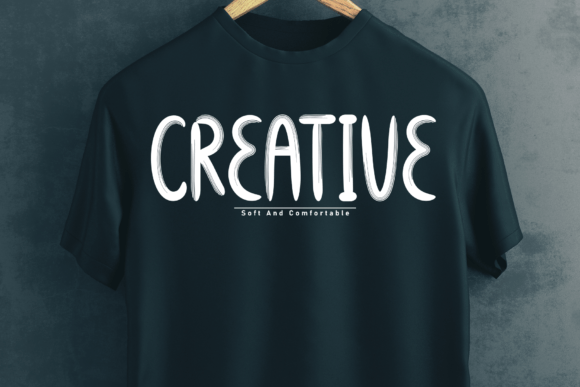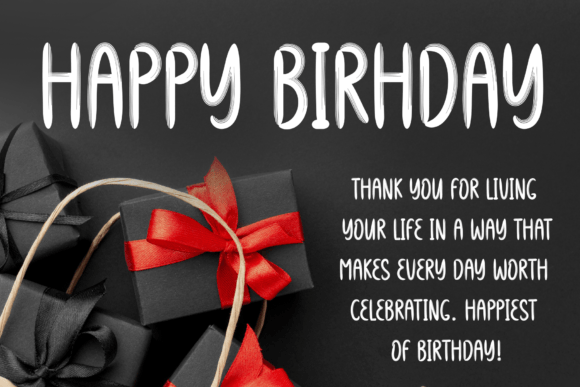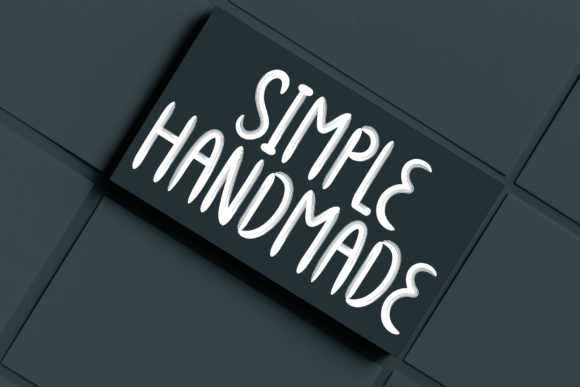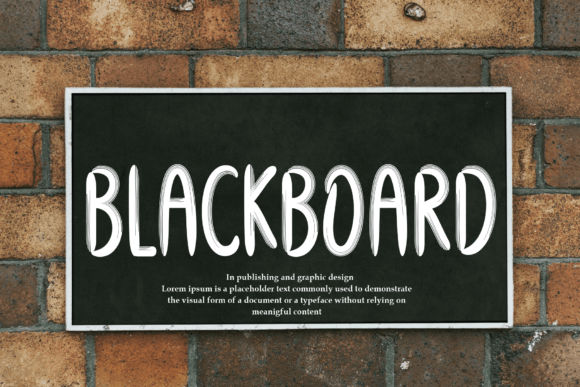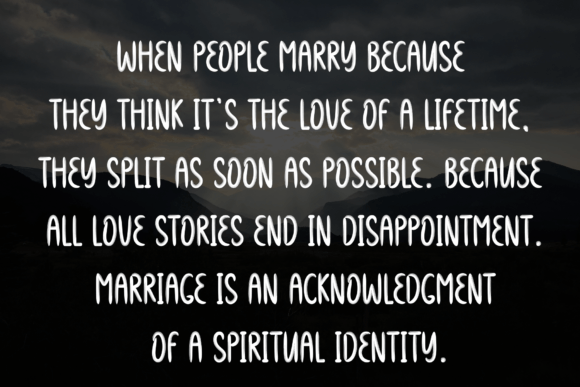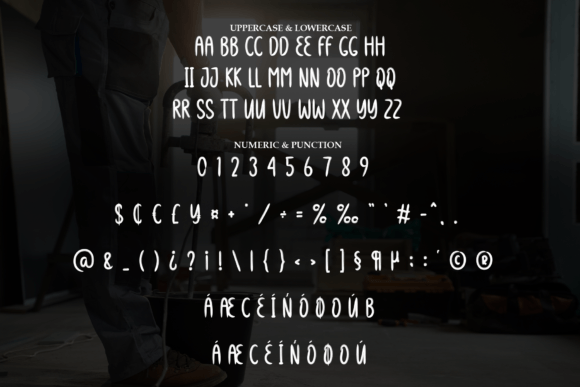
Introduction to Renovation Font
Remember the moment when you first conceptualized your dream project? Maybe it was a wedding invitation, a birthday card, or a social media campaign. Whatever it was, you knew exactly what you wanted – something unique, something that would capture the essence of the occasion. For designers like you, finding the perfect design resource can be a challenge, but what if I told you that I’ve stumbled upon a hidden gem that will make your creative project shine? Say hello to the Renovation Font, a sweet and friendly handwritten display font that’s about to become your new best friend!
This high-quality font is perfect for adding a fun touch to your designs, and the best part? It’s free to download! With its transparent background, you can easily layer it over any image or background, giving you complete creative control. Whether you’re a seasoned designer or just starting out, the Renovation Font is an invaluable addition to your design arsenal, and I’m excited to share it with you.
Key Features of Renovation Font
- High-quality design: Renovation Font is a premium font designed to meet the needs of creative projects, offering a unique and stylish look.
- Transparent background: This font features a transparent background, allowing for seamless integration into various design elements.
- Large character set: With over 1000 characters, including uppercase and lowercase letters, numbers, and symbols, this font is perfect for any creative project.
- High-resolution design: With a resolution of 300 DPI, this font is ideal for printing and digital use, ensuring crisp and clear text.
- Design resource: Renovation Font is a valuable addition to any designer’s toolkit, providing a unique and stylish look for any creative project.
Honest Review: Renovation Font
I recently had the chance to work with the Renovation Font, and I must say it’s been a game-changer for my creative project. The high-quality design is perfect for any project that requires a touch of elegance and sophistication. ✨
One of the things I love about this font is its versatility. It’s available for free download, which makes it a fantastic design resource for both personal and professional projects. The transparent background is also a huge plus, as it allows for seamless integration with any design element. ✨
The font comes in a variety of styles and weights, making it easy to find the perfect fit for your project. However, I did encounter some limitations when using the font in combination with certain design software. The font sometimes doesn’t render properly, which can be frustrating. ⚠️
Despite this minor issue, I’m overall really impressed with the Renovation Font. It’s a high-quality design resource that’s perfect for any creative project. If you’re looking for a free download with great potential, I would definitely recommend giving it a try. ✨
- Perfect for creative projects that require elegance and sophistication
- Transparent background for seamless integration with design elements
- High-quality design with a variety of styles and weights
Renovation Font
For a more advanced design, import the Renovation Font into Adobe Photoshop or Illustrator. This will give you access to a wide range of design tools and features, allowing you to customize the font to your liking. With the transparent background, you can easily layer the font over any image or design element, creating a unique and eye-catching visual effect.
Even if you’re not a seasoned designer, you can still use the Renovation Font in PowerPoint or Word. Simply upload the font and use it to create engaging presentations or documents. The high-quality design will add a professional touch to your work, making it perfect for business or academic projects.
Tips for Getting the Most Out of Renovation Font
To get the most out of the Renovation Font, experiment with different font sizes, colors, and styles. You can also use the font in combination with other design elements, such as images or graphics, to create a visually appealing design.
The Renovation Font is perfect for a wide range of creative projects, including logos, business cards, brochures, and presentations. It’s also great for adding a touch of elegance to your website or social media graphics.